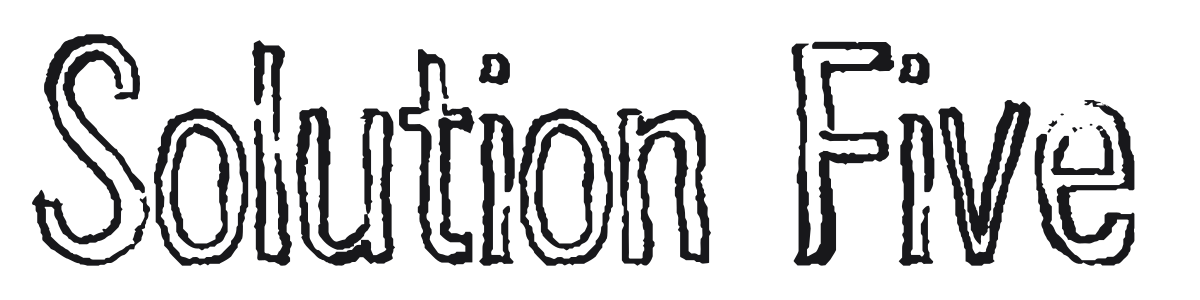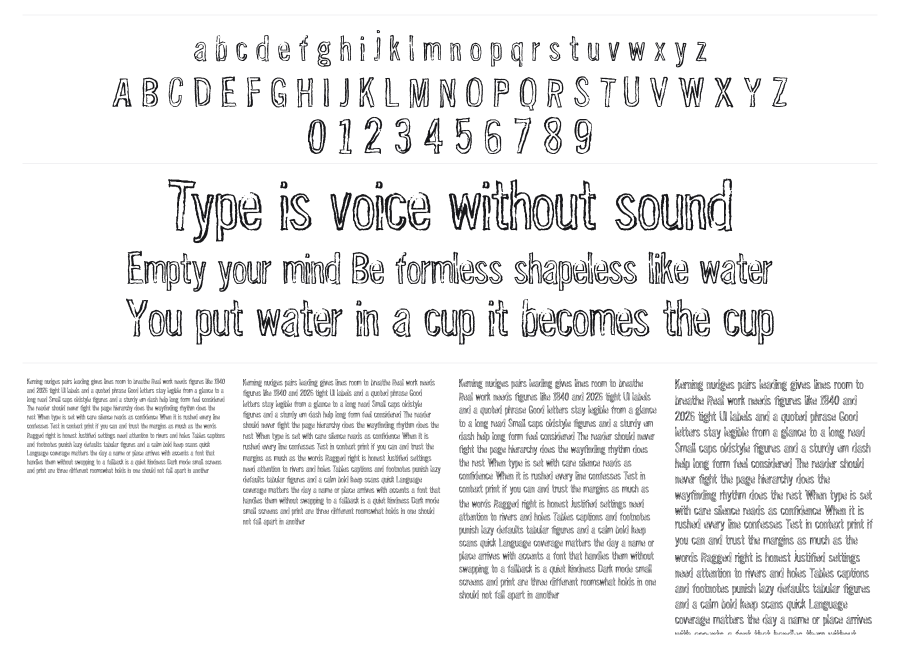
Solution Five
Solution Five is an outlined display font with a rough, hand-stamped character. The hollow strokes are edged with subtle erosion and irregularity, giving it a warm, imperfect quality that feels more handcrafted than digital. It works well where a headline needs texture and personality without going full grunge.